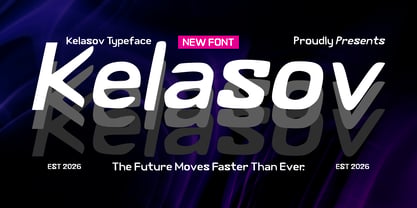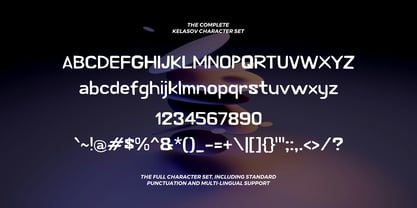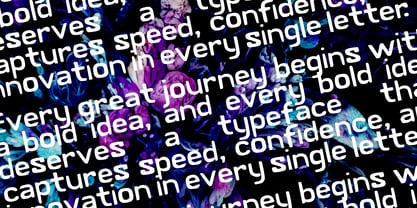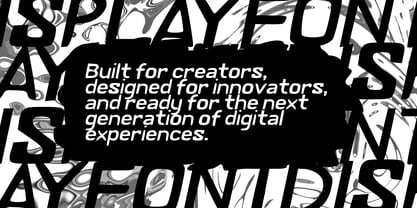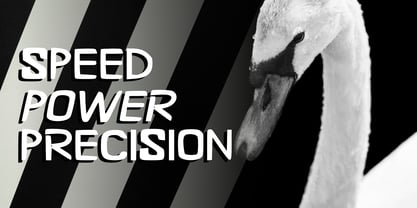
Kelasov
by Mei Suseno
The Kelasov Font Family was designed by Wahyu Eka Prasetya, Mei Suseno and published by Mei Suseno. Kelasov contains 2 styles and family package options. More about this family
Kelasov is a futuristic display typeface that combines sleek geometric forms with smooth rounded edges, creating a modern and energetic visual identity. Designed to capture the spirit of innovation, speed, and technology, Kelasov delivers strong readability while maintaining a distinctive sci-fi aesthetic.
Its clean construction and balanced proportions make it ideal for branding, gaming, esports, automotive projects, technology products, digital interfaces, posters, headlines, and futuristic visual concepts. The font features a complete character set with multilingual support, allowing designers to create impactful and professional designs across various creative applications.
Whether used for bold titles or eye-catching branding, Kelasov brings a sense of motion, confidence, and forward-thinking style to every project.
Designers: Wahyu Eka Prasetya, Mei Suseno
Foundry: Mei Suseno
About Mei Suseno
Mei Suseno is an independent type foundry focused on creating distinctive, high-quality typefaces for modern branding, editorial design, digital products, and visual communication. The foundry combines contemporary aesthetics with careful craftsmanship to develop fonts that are both functional and expressive. With an emphasis on originality, versatility, and strong visual identity, Meisuseno aims to support designers, creative studios, and brands in building memorable and effective design experiences across print and digital media.